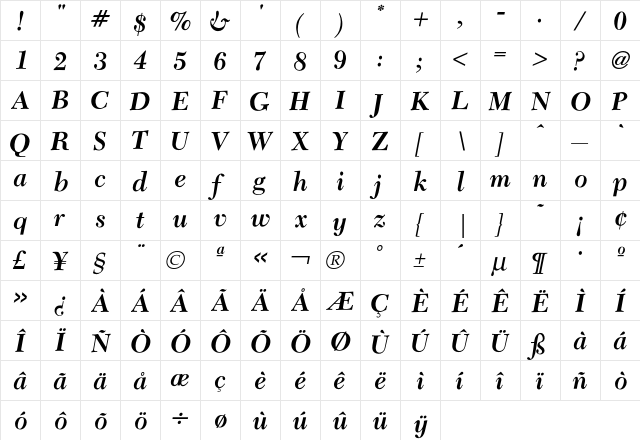
Camelia BoldItalic
Design Context for Camelia Typeface
Camelia takes a measured approach to typography — its balanced proportions and neutral character make it a reliable workhorse for both digital and print work. Its italic angle brings a sense of urgency and motion to the letterforms. Its bold stroke weight gives it real presence on the page.
Pro Tip: Use Camelia for emphasis, pull quotes, and subheadings where its slanted energy can add rhythm to the layout.